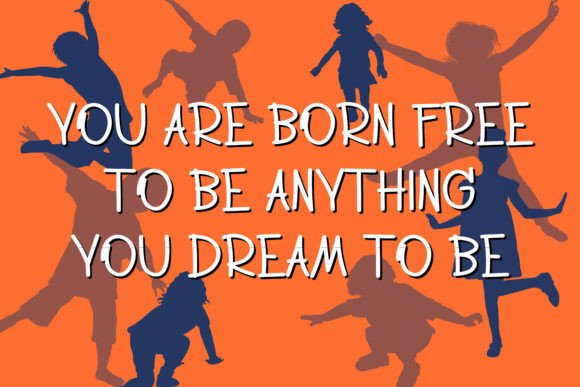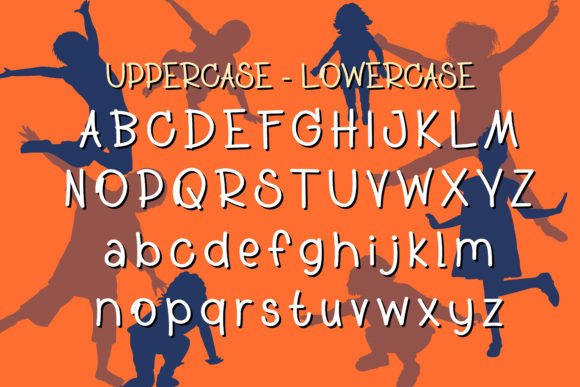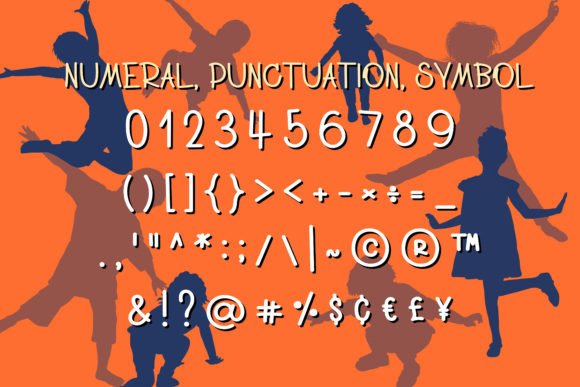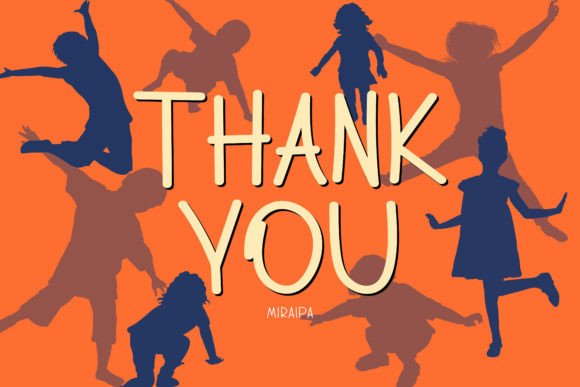
The Joy of Creativity: Unlocking the Magic of Kids Land Font
Who among us hasn’t felt that rush of excitement when brainstorming a new project? The blank canvas, the endless possibilities, and the thrill of bringing our ideas to life – it’s a feeling like no other. For designers, this spark of creativity is what drives us to push boundaries and innovate. And for those who love kids, there’s a special font that captures the essence of childhood wonder: Kids Land Font.
Designed in a cute and friendly handwritten style, Kids Land Font is perfect for any project that needs a touch of whimsy and charm. Whether you’re planning a child’s birthday party, creating a festive holiday display, or simply want to add a playful twist to your designs, this font is sure to bring a smile to your face and a sense of joy to your creations.
Kids Land Font Key Features
- Unique Characteristics: Designed specifically for children’s content, with playful and colorful letterforms, and includes a range of fun and educational symbols.
Kids Land Font Review
First impressions are everything, and when I first laid eyes on the Kids Land Font, I thought it was a cute and playful choice for kids’ content. ✨ The rounded edges and childlike curves immediately scream ‘fun’ and ‘friendly’, making it perfect for nursery rhymes, kids’ menus, or children’s books.
Some other things I like about this font are:
- It’s highly customizable, with various weight and style options to suit your design needs.
- The font is quite readable, even at smaller sizes, making it great for longer blocks of text.
- The overall aesthetic is quite cohesive, with a clear theme that’s easy to work with.
However, there are a few limitations I’d like to mention:
- The font might be a bit too ‘kiddie’ for some designs, and may not be taken seriously in more formal contexts.
- The characters are quite thick and may not be suitable for very small font sizes.
- The font’s bold and italic styles may not be as distinct as some users would like.
Overall, I think the Kids Land Font is a solid choice for kids’ content, but may not be the best fit for more complex or formal designs. With some careful consideration and customization, it can be a great addition to your design toolkit.
Tips for Getting the Most Out of the Kids Land Font
Here are some tips for getting the most out of the Kids Land Font:
- Use the font in conjunction with colorful illustrations and graphics to create a playful and engaging design
- Experiment with different font sizes and colors to create visual interest and hierarchy
- Use the font to create fun and creative titles, headings, and body text
The Kids Land Font is commonly used in:
- Children’s book covers and illustrations
- Fun